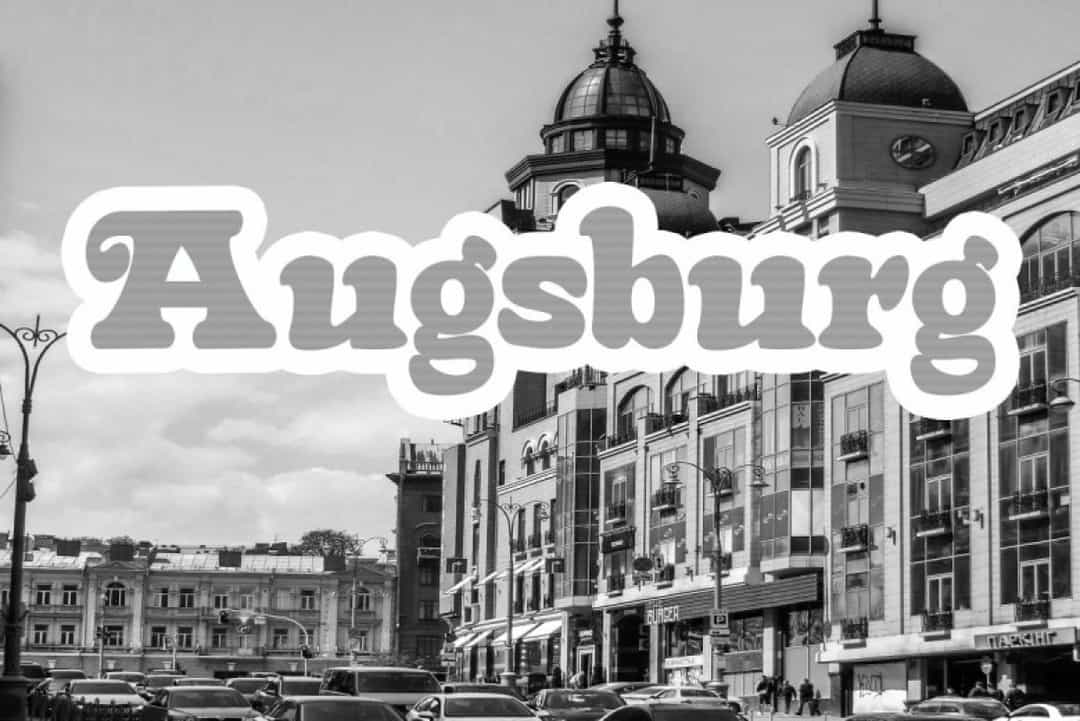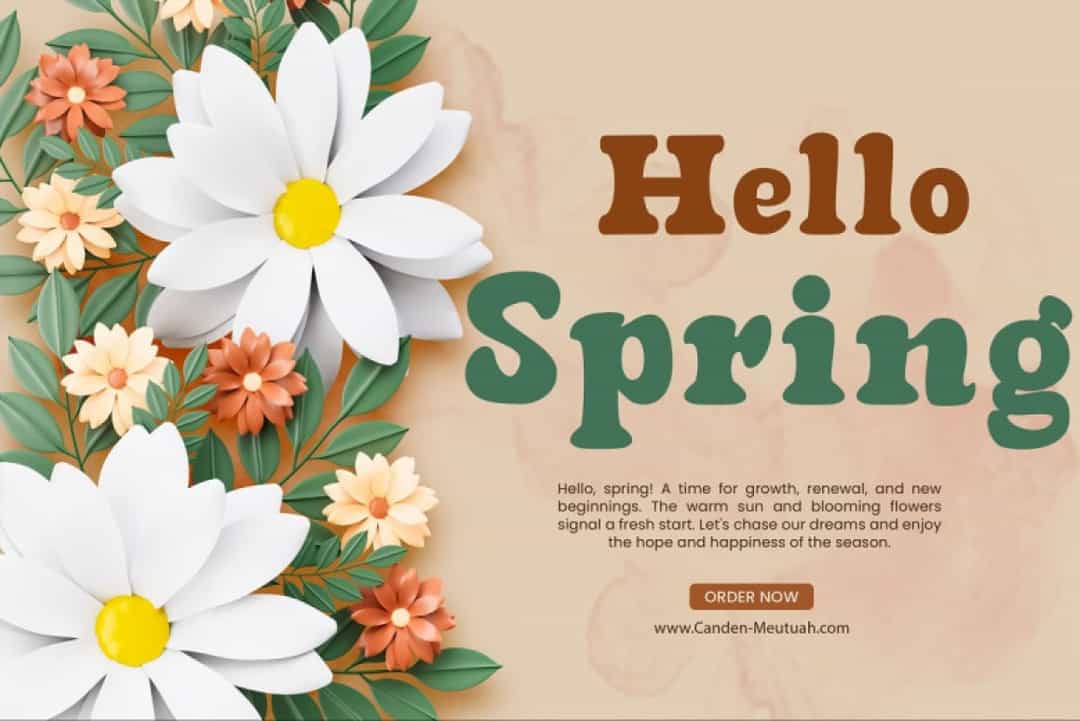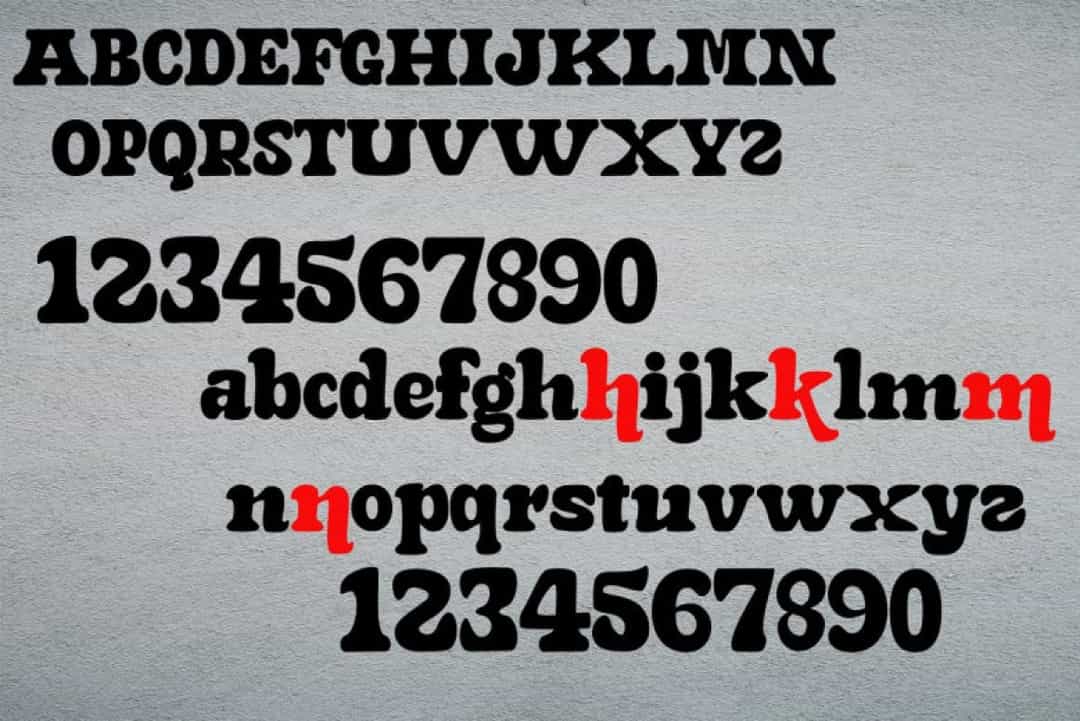
Augsburgis an elegant and luxurious round serif typeface full of nostalgia with an edge of psychoedelia. Designed in sleek modernity, Augsburg’s OpenType feature gives access to an extensive collection of alternative letters and ligatures as well as lowercase letters to create a luxurious and classy appearance.